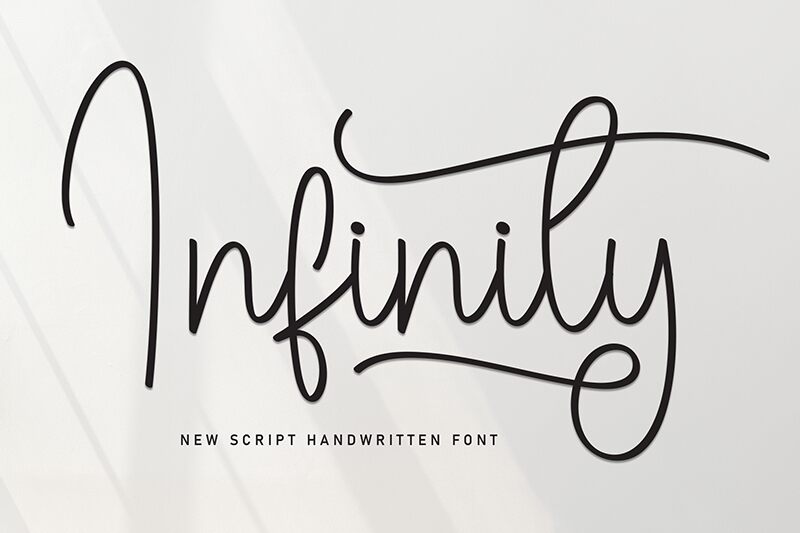
Infinity
Infinity font by Scratchones is a light handwritten font with modern relevance and a casual feel. Its slender letters boast a delicate appearance that makes every character seem unique. The friendly style derives from its soft curves, which present an expression of elegance and a personal touch in every word added.
Infinity being free for use, works best with beauty-related designs such as skin products’ packaging or perfume bottles. It’s also an attentive selection to consider for posters, branding presentations, jewelry design logos, restaurant menus, photography projects, invitations of all types, social media content creation projects, marketing posts and ads.